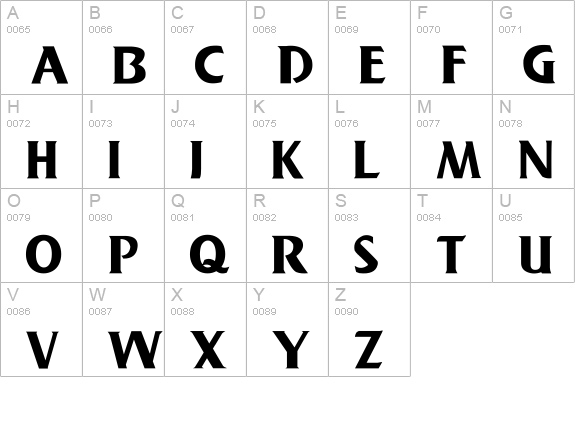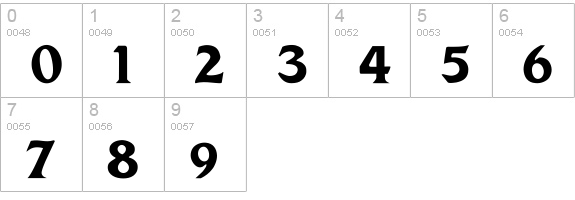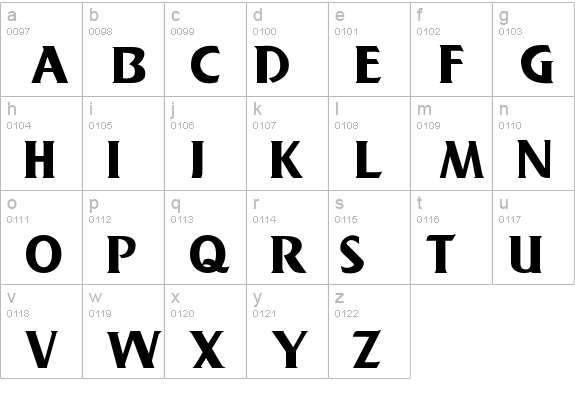
Big Bad Wolf Font Details
Introducing Big Bad Wolf font, a bold and powerful typeface that exudes a sense of strength and confidence. This versatile font is perfect for making a statement in your designs, whether it's for branding, posters, or headlines. With its sharp edges and strong presence, Big Bad Wolf font commands attention and leaves a lasting impression. The best part? Big Bad Wolf font is completely free to download at FontsMarket.com. That's right, you can easily access this striking font and elevate your projects without breaking the bank. So why wait? Add a touch of fierceness to your designs with Big Bad Wolf font today!